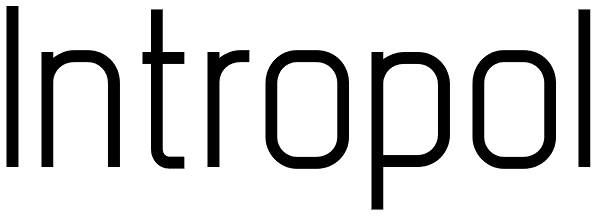
Intropol
A modern journalistic style typeface. The subtle condensed characters create great economy of space best suited to brochure, editorial and magazine layouts. Also using the contrasting weights you can add great dimension across headline and body...